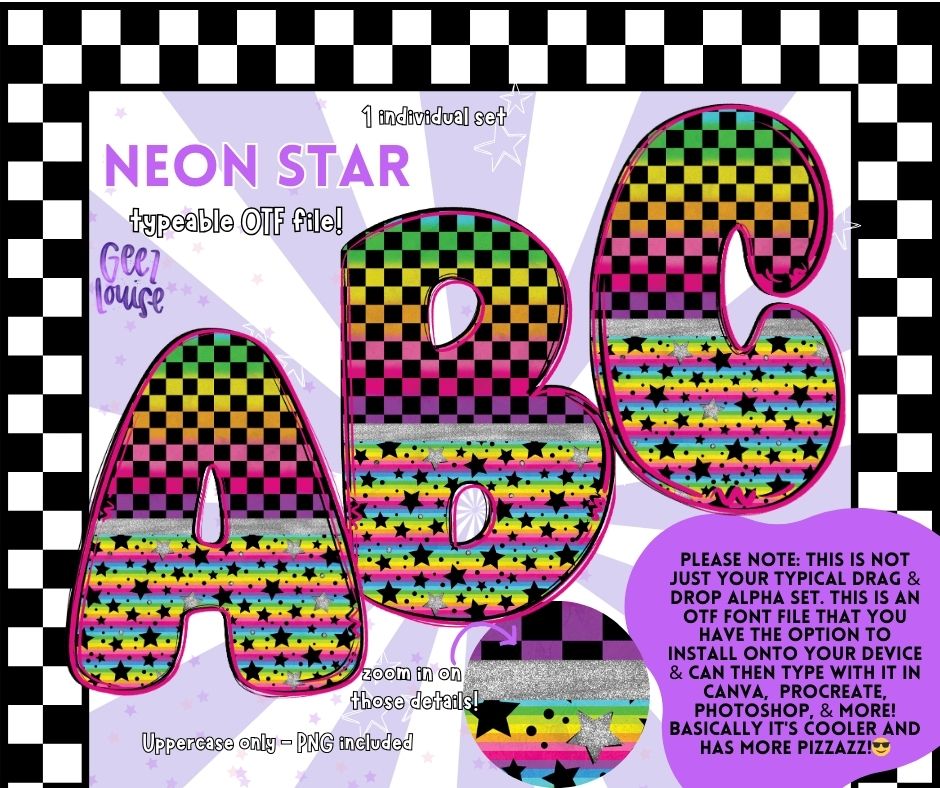
Neon Star OTF Alpha – Typeable Font & PNG Files 🌈✨
Brighten up your designs with this Neon Star OTF Alpha Set! This is NOT just your typical drag-and-drop alpha – it’s a fully typeable OTF font that you can install on your device and use in Canva, Procreate, Photoshop, and more! Plus, PNG files are included for added flexibility.
✔ Bold, striped neon colors – Adds vibrant energy to your projects
✔ High-quality details – Zoom in and see the crisp design